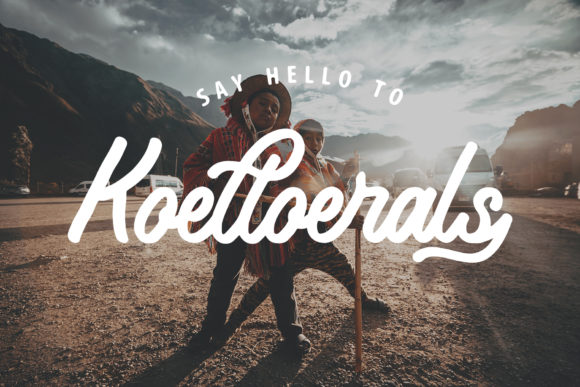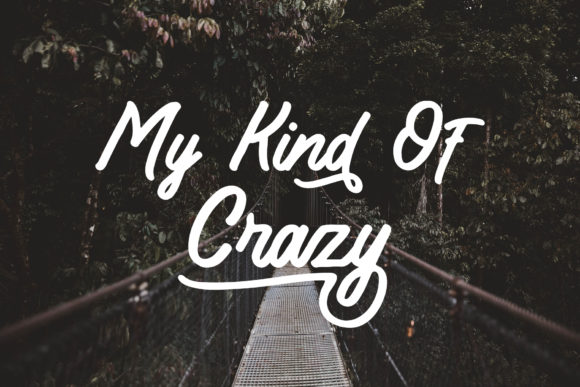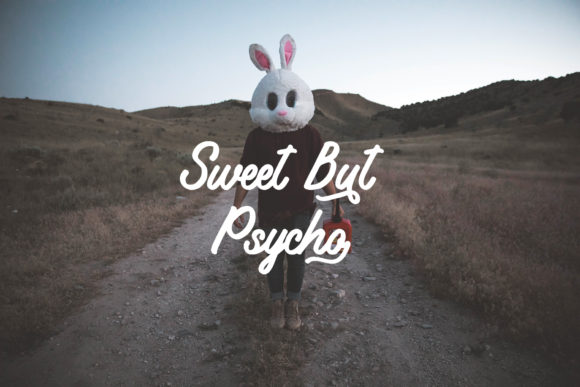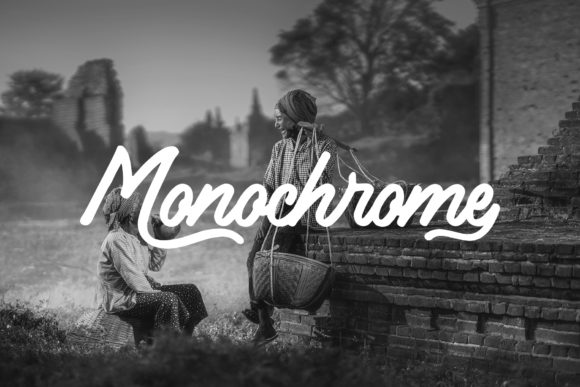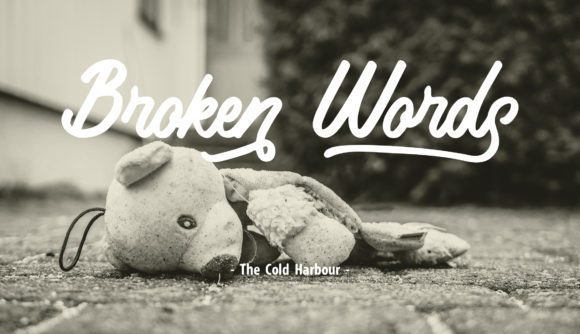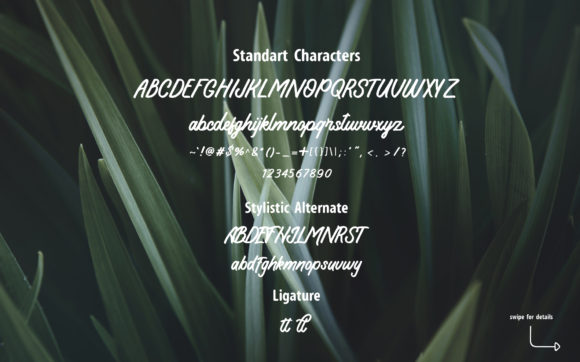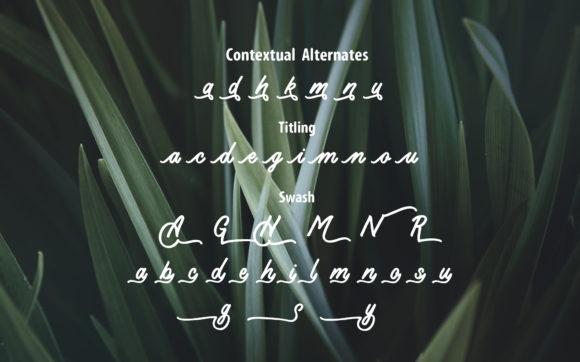
Koeltoerals Font
The Koeltoerals is a striking, yet elegant script font. It’s perfect for logos, quotes, advertisement, wedding invitations, and much more!